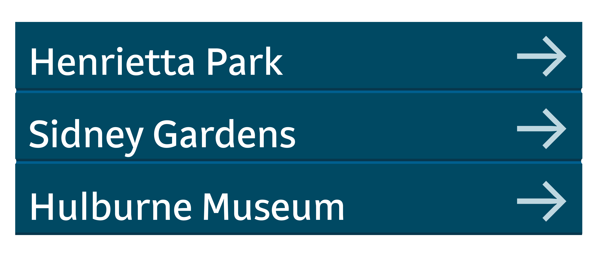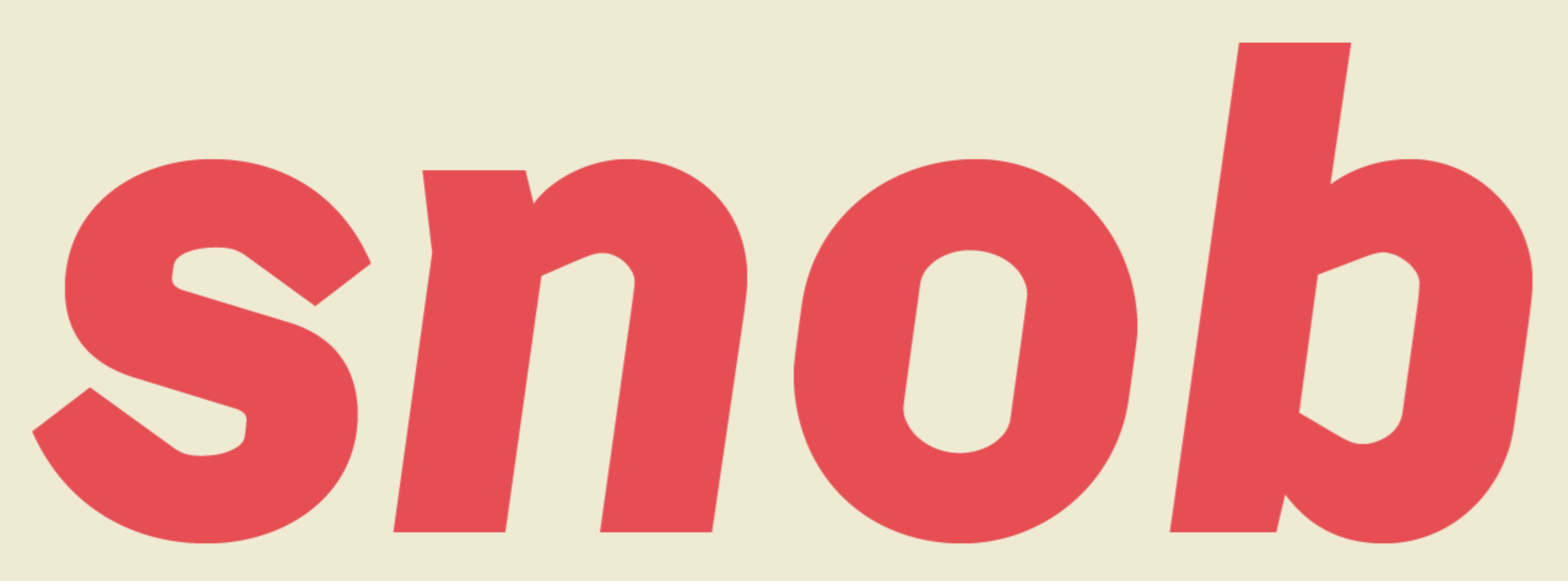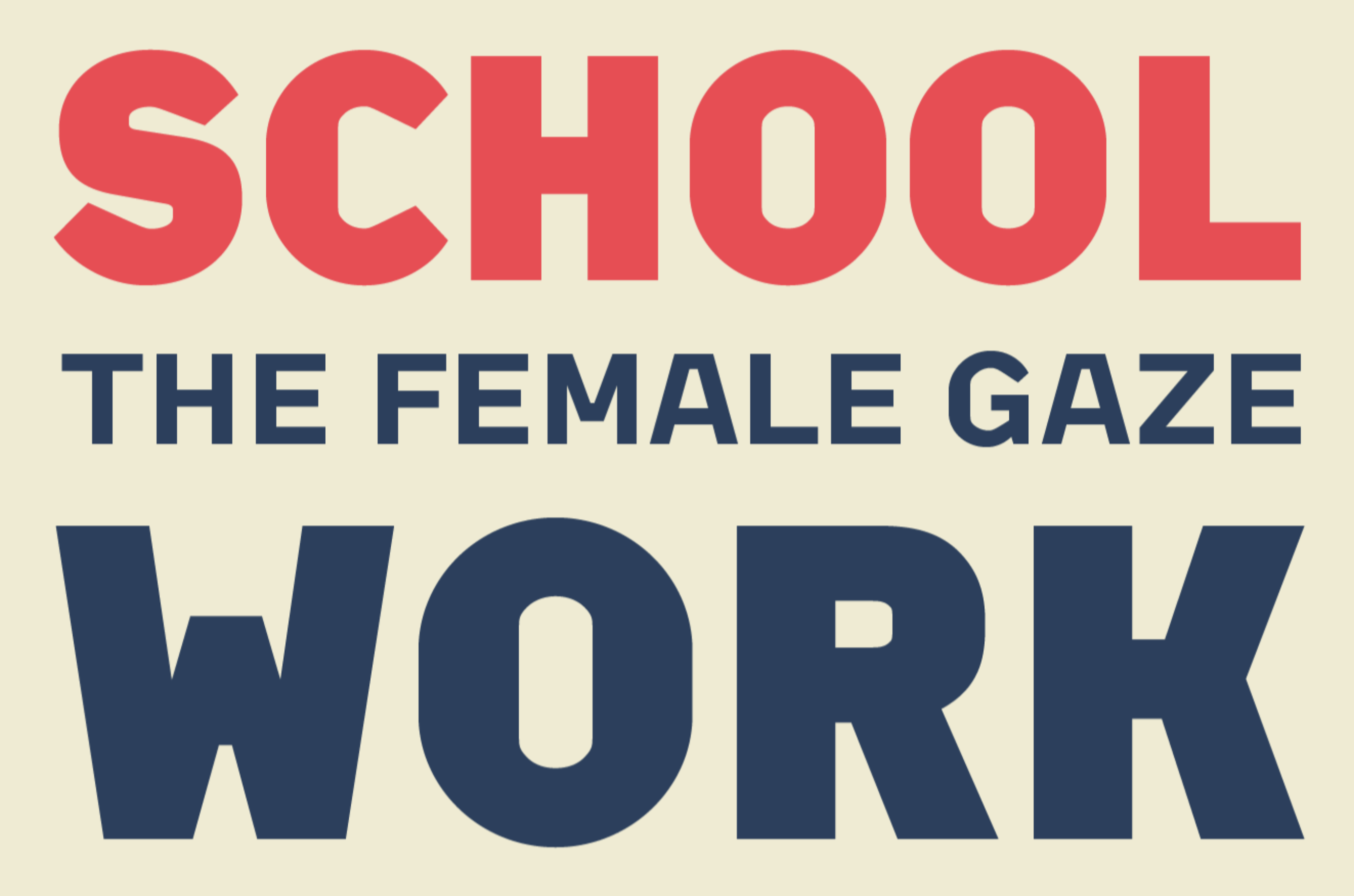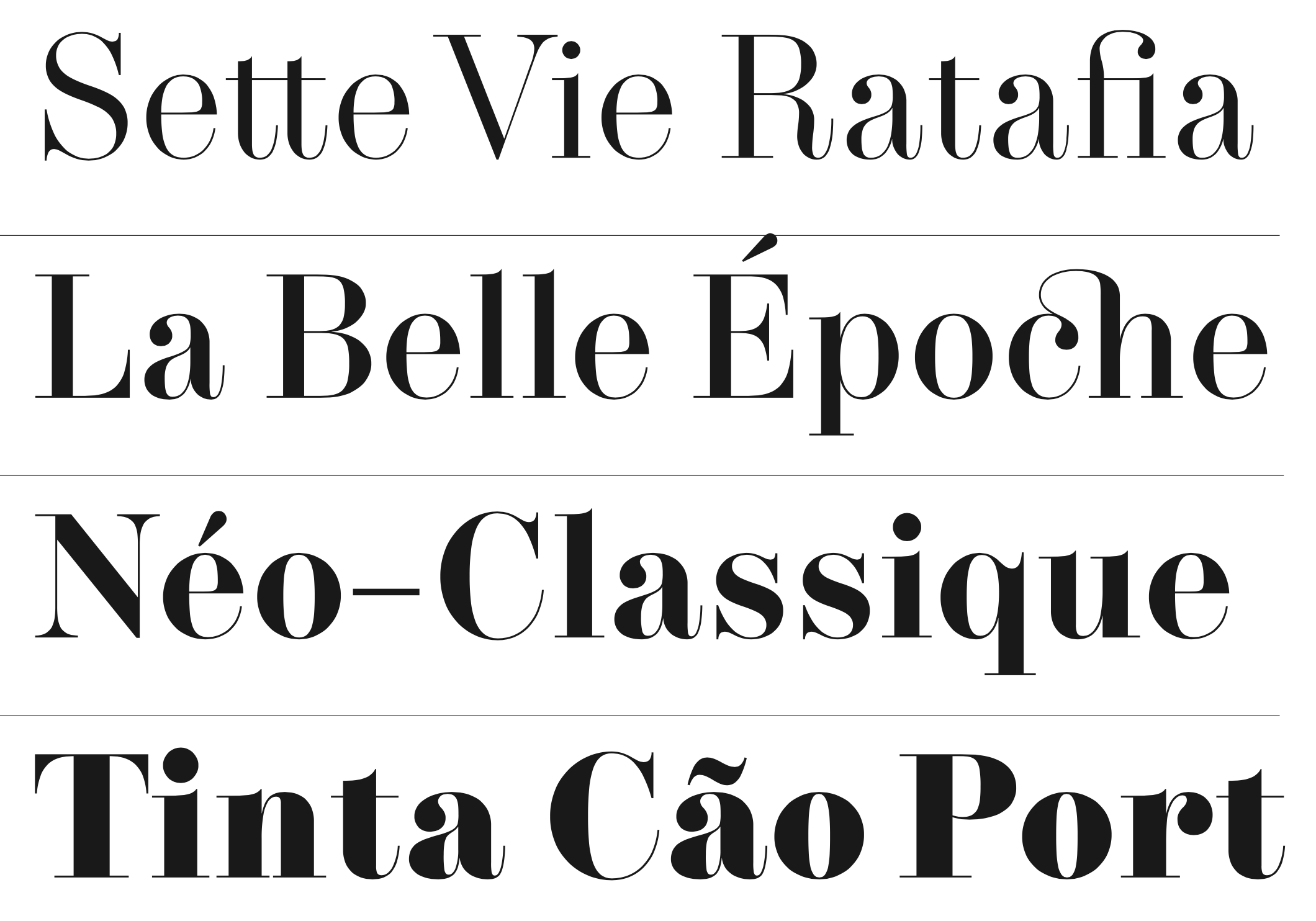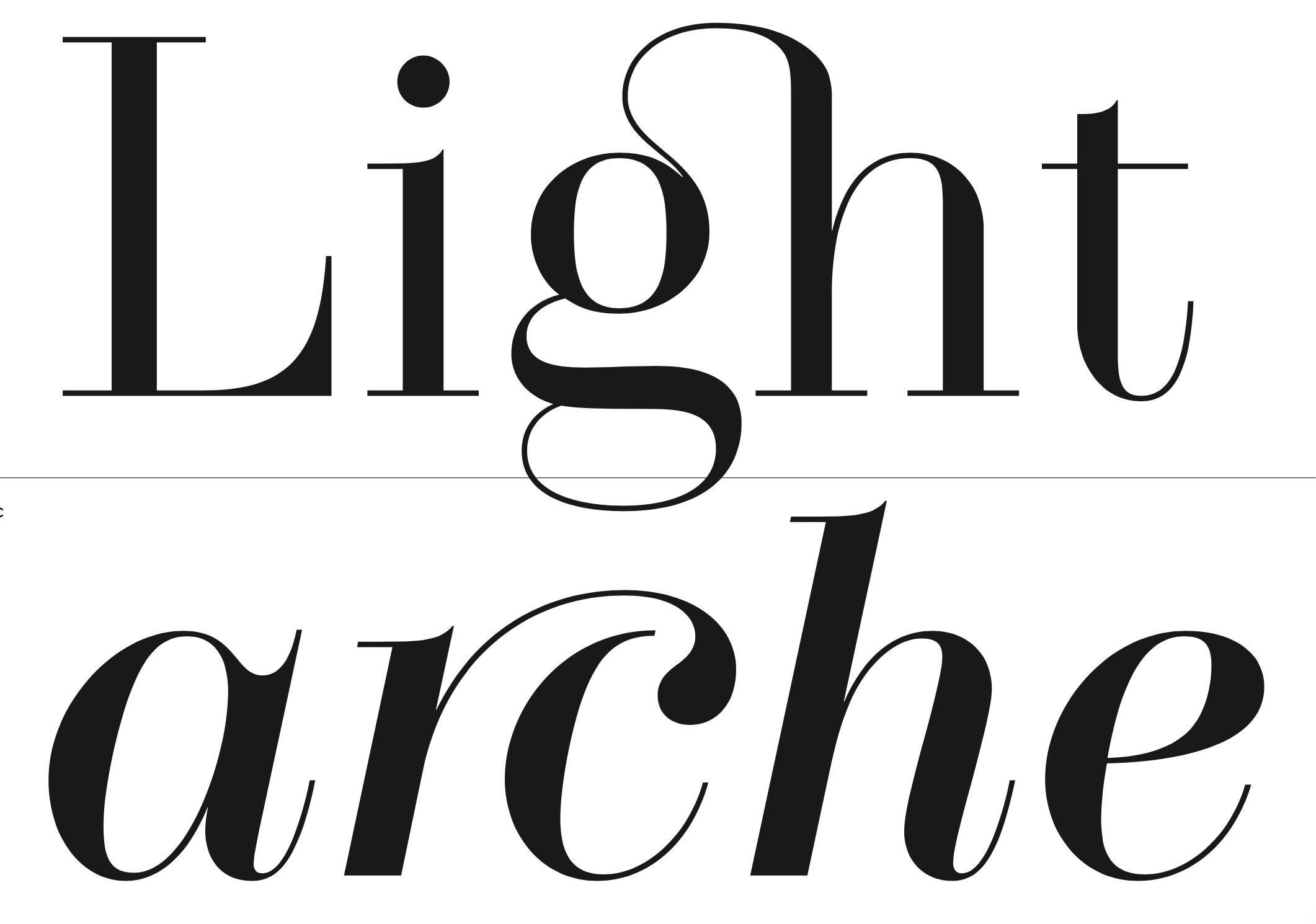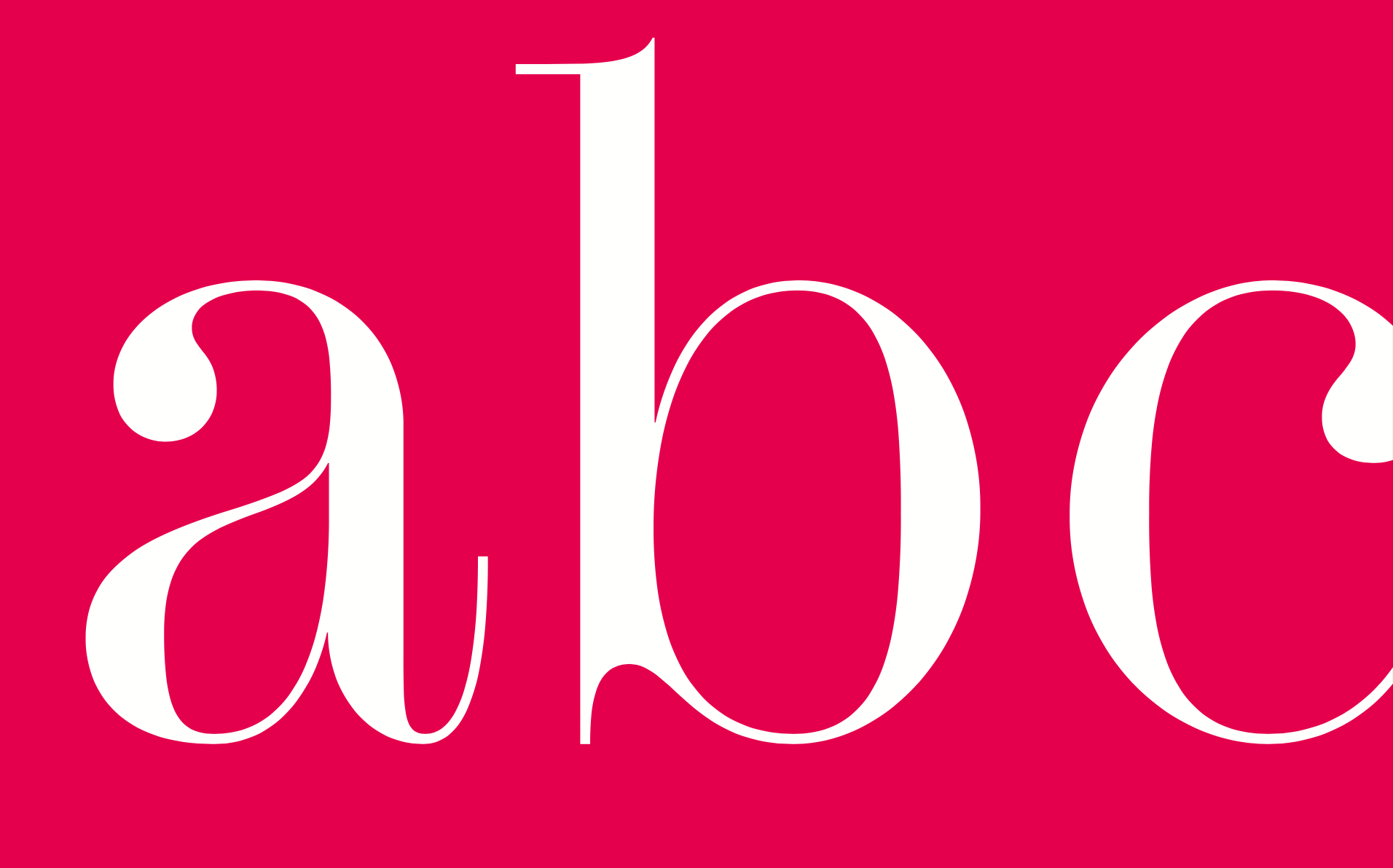
David Quay
British type and graphic designer (b. 1948, London) who graduated from Ravensbourne College of Art&Design in 1967, and after working as a graphic designer in London, founded Quay&Gray Lettering with Paul Gray in 1983. David Quay Design started in 1987, and finally, in 1990, he co-founded The Foundry with Freda Sack and Mike Daines in London. The Foundry also develops custom typefaces, marks and logotypes for companies inernationally these include a special typeface to be readable at very small sizes for Yellow pages, corporate fonts for BGplc (British Gas) NatWest Bank, and signage typefaces for both RailTrack in the UK and the Lisbon Metro system in Portugal. After Freda's death, he set up The Foundry Types with Stuart de Rozario. He taught typography and design at the Academie St. Joost, Hogeschool Brabant from 2001-2003. He taught part-time at IDEP in Barcelona, and lives and works in Amsterdam. In 2009, he started selling his fonts at MyFonts. He is also a designer at Retype in Den Haag, The Netherlands. His fonts, in chronological order:
• Custom lettering and type for the Penthouse calendar.
• 1983: Santa Fe (monoline script), Agincourt (1983, Letraset and ITC, blackletter), Blackmoor (1983, ITC, English-style blackletter).
• 1984: Titus, Vegas.
• 1985: Quay, Milano.
• 1986: Bronx (brush script).
• 1987: Bordeaux (a skyline font family, Letraset), Bordeaux Script.
• 1988: Latino Elongated, Mekanik.
• 1989: Aquinas, Robotik, Helicon (1989, Berthold).
• 1990: Quay Sans (a humanist sans based on Syntax), Digitek, Teknik.
• 1991: Letraset Arta.
• 1992: Coptek, La Bamba, Lambada (1992, Victorian; Letraset), Scriptek (angular design, ITC).
• 1993: Marguerita (curly vampire script).
• 2010: Kade (Re-Type---it is a display/semi display sans family of fonts based on vernacular lettering photographed around the harbours of Amsterdam and Rotterdam).
• 2011: Bath (2010-2011), a typeface developed with Ramiro Espinoza for the signage and orientation of the city of Bath. It comes in Bath Serif and Bath Sans versions.
• Foundry Gridnik (2016, The Foundry). Influenced by Wim Crouwel's work: Foundry Gridnik was developed from the single weight monospaced typewriter face, originally created by Dutch designer Wim Crouwel in the 1960s.
• Foundry Tiento (2020). A magnificent very Latin didone family with exquisite hairline ligatures.
• Fernhout (2021). The prototypical kitchen tile typeface. Quay was inspired by an icomplete alphabet Wim Crouwel designed in 1963 for an exhibition poster font the Dutch painter Edgar Fernhout at the Van Abbemuseum.